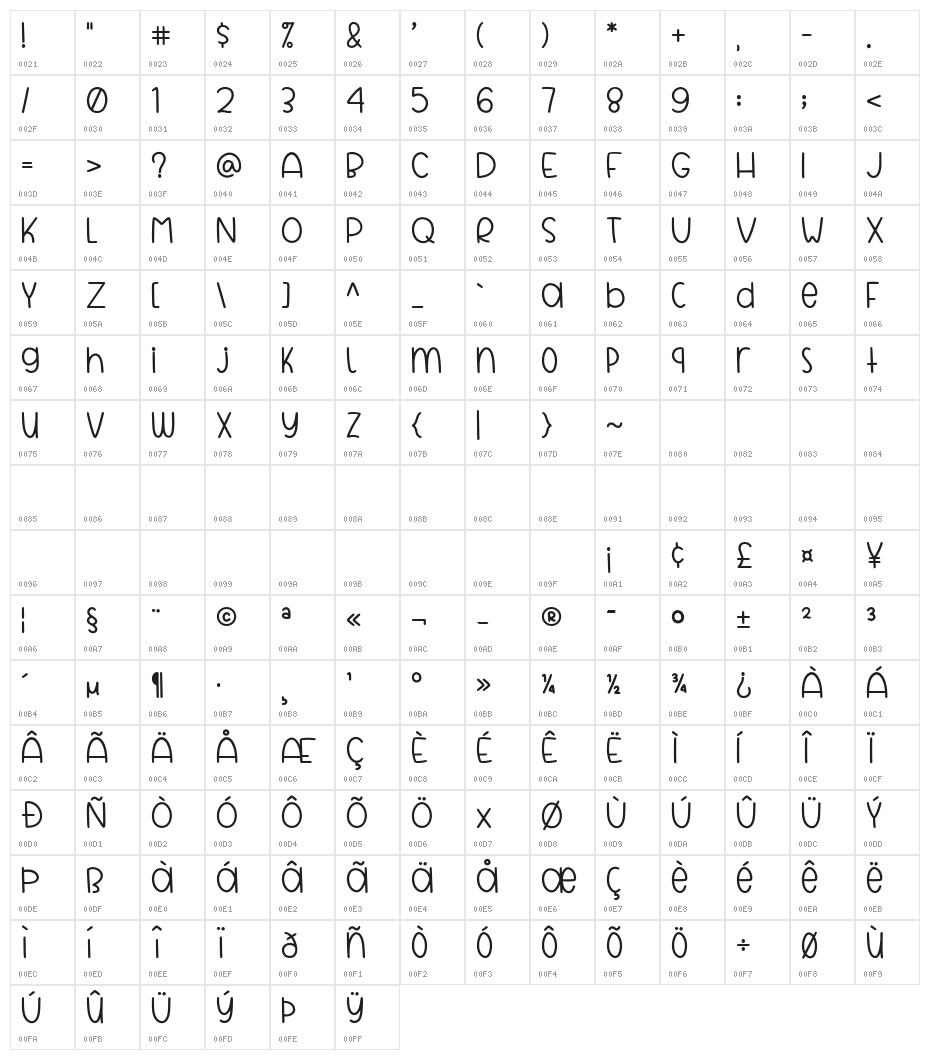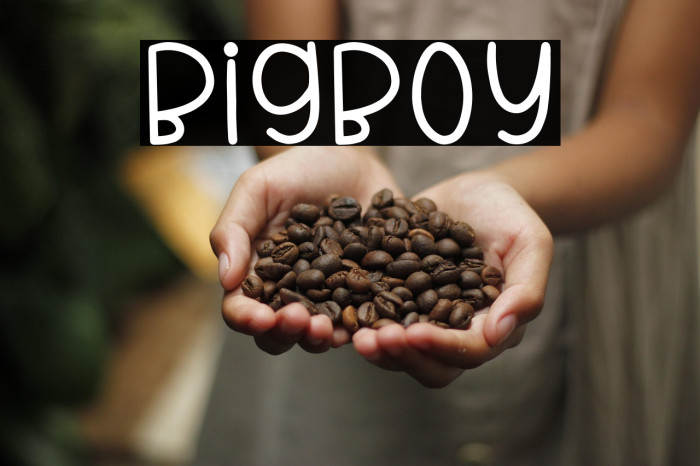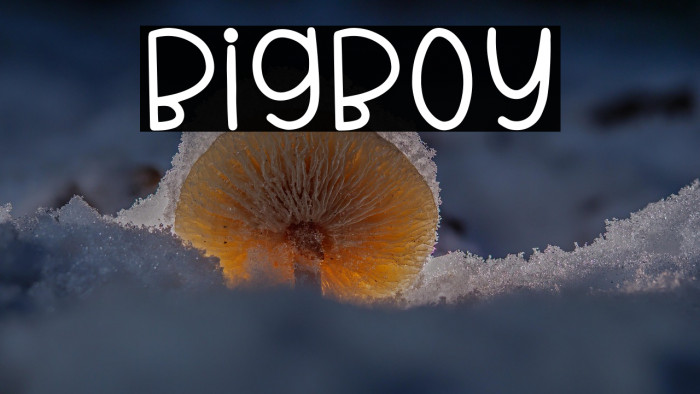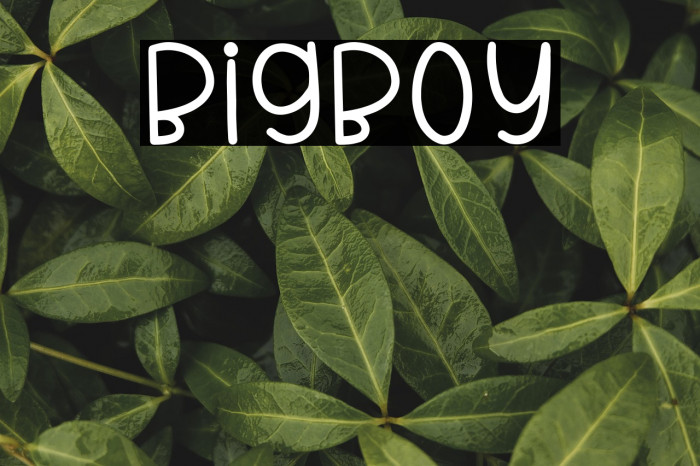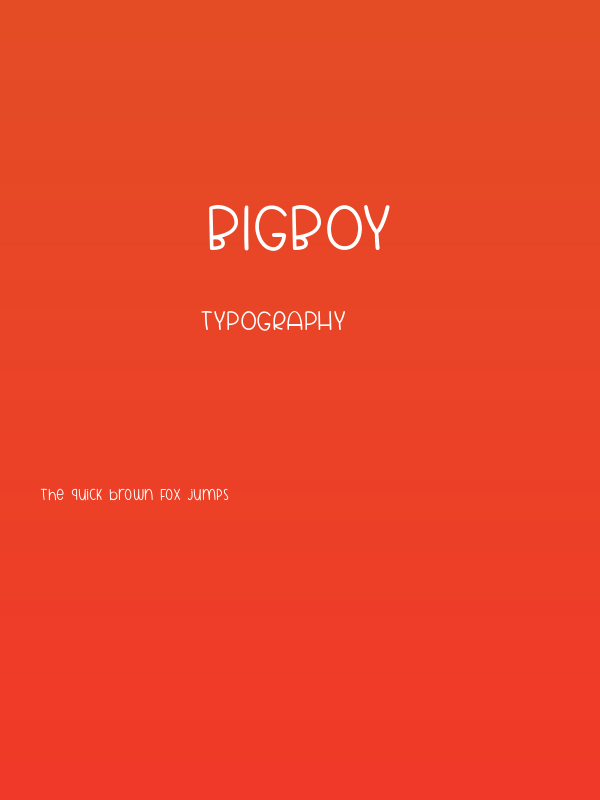
BigBoy Font
BigBoy Description
This playful and whimsical font features rounded, hand-drawn characters that convey a sense of fun and informality. The letters are slightly irregular, adding to the casual and approachable feel. The strokes are consistent in thickness, giving it a uniform appearance while maintaining a friendly vibe. The font includes both uppercase and lowercase letters, numbers, and a variety of special characters, making it versatile for different uses. Its simplicity and charm make it suitable for projects that require a personal touch or a childlike aesthetic.
| Proposed Projects | Ideal for children's books, greeting cards, playful branding, and casual invitations. |